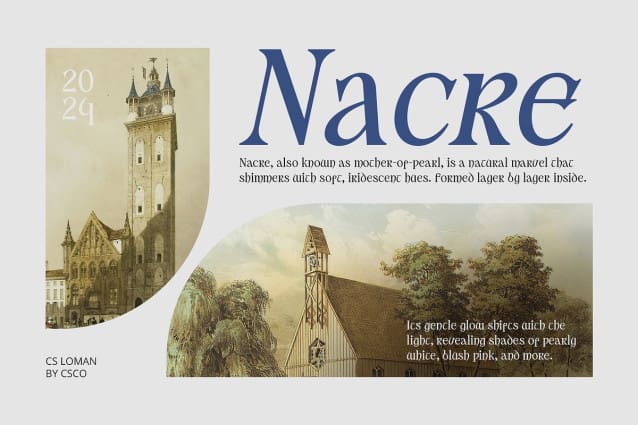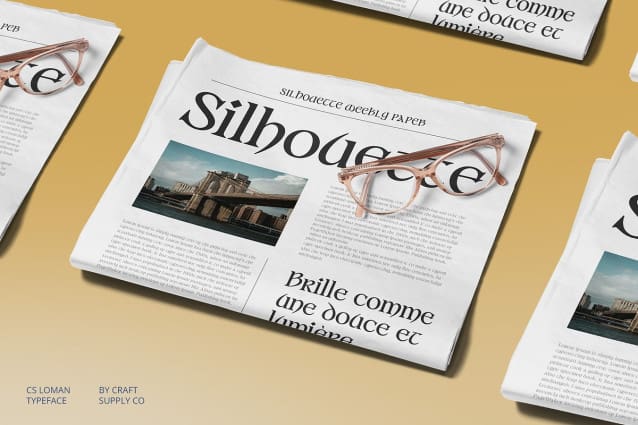
CS Loman Font
CS Loman Font is a classic serif display font that beautifully captures the essence of uncial style, showcasing unique characteristics that evoke an ancient and historical aesthetic. With its gracefully rounded and curved letterforms, this font imparts an elegant and artistic impression, making it ideal for projects that seek to convey a sense of history and tradition. The predominantly uppercase presentation, embellished with ornamental details, enhances its visual appeal, creating a striking and memorable typographic experience.
Rich in Tradition and Heritage This font exudes a rich traditional atmosphere that resonates with the craftsmanship of medieval handwriting. Its strong character and distinctive shapes reflect the artistry of ancient script, making CS Loman an excellent choice for designs that highlight historical themes. Whether you’re creating book covers, official documents, or materials related to cultural heritage, this font offers a timeless aesthetic that adds depth and authenticity to your work.
Perfect for Historical and Cultural Projects CS Loman is particularly suited for projects that require a touch of elegance and sophistication. Its unique letterforms and decorative elements make it perfect for literature, religious texts, or any design that celebrates historical narratives. The uncial style brings a profound classic touch, enhancing the storytelling aspect of your designs and captivating your audience with its intricate beauty.